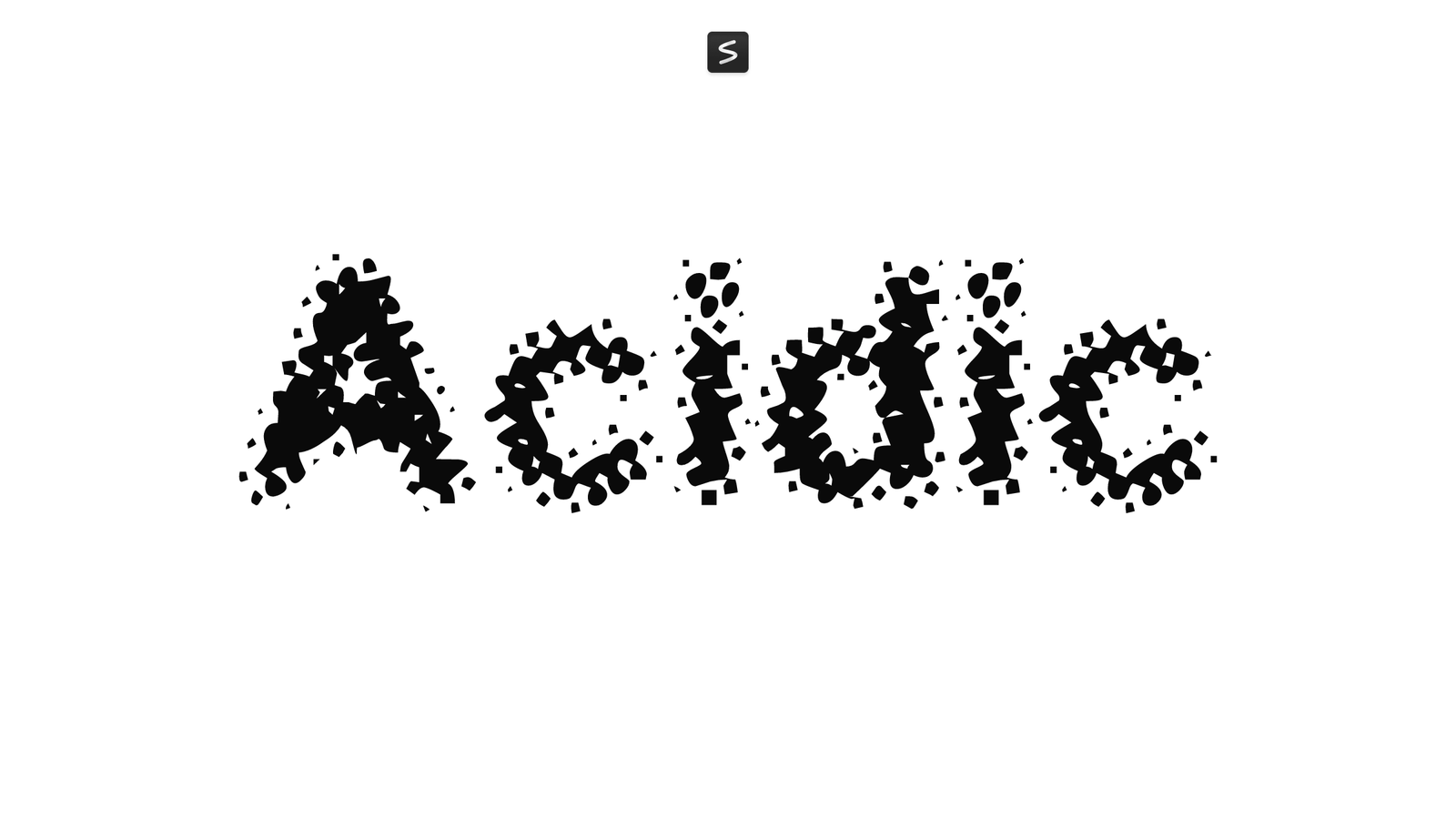
Acidic is a distorted display font designed by Surface Type. Its jagged, melted letterforms suggest acid or decay, with characters that appear warped and unstable, as though the letters themselves are dissolving. Each glyph has rough, irregular edges and a compressed quality that gives the font an unsettling, chaotic feel.
The font works well for projects that need visual tension or a sense of danger: album covers, horror movie titles, experimental posters, punk zines, or video game UI. Its distorted nature makes it read best at larger sizes, where the intentional imperfections become a design asset rather than a legibility issue.
If you want text that looks broken or corrupted, Acidic delivers that effect directly. It’s useful for adding an edge or uncanny quality to designs that call for something deliberately off-kilter.